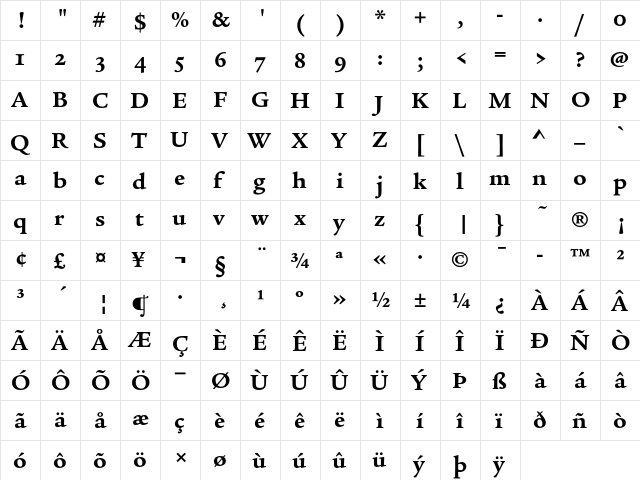
Legacy Serif ITC Bold OS
Design Context for Legacy Serif ITC Typeface
Legacy Serif ITC carries the refined structure of traditional serif typography, with bracketed terminals and considered proportions that communicate credibility and craft. The heavy weight commands attention and anchors typographic hierarchies.
Pro Tip: Use Legacy Serif ITC for editorial body copy and considered headline work. Pair with a neutral sans for UI elements or captions to create a classic hierarchy.